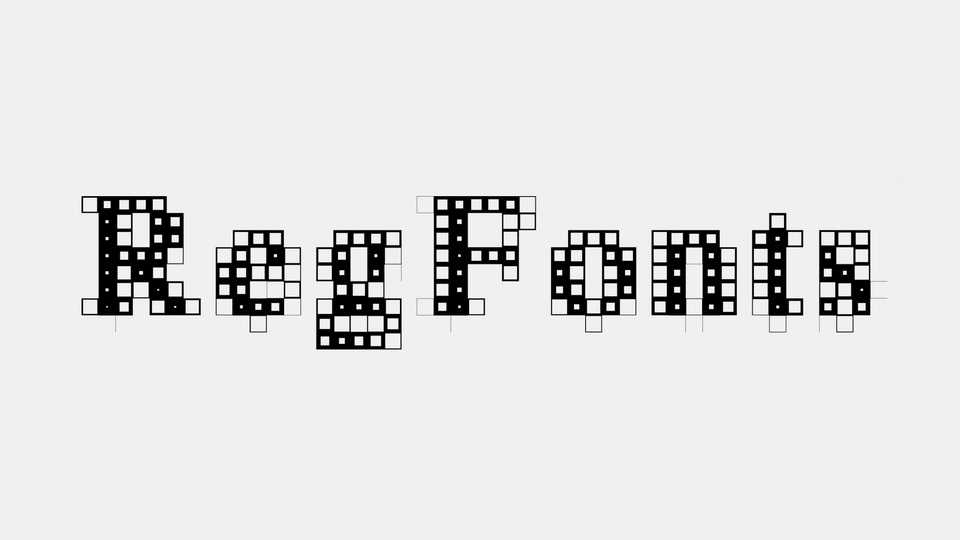
Download Regular Fonts, an experimental typographic project started in 2017 at a workshop. Basic principles consist in framing each letter on a grid and redistributing its’s black matter on the outline of each square of it.
Designer: Cédric Rossignol Brunet